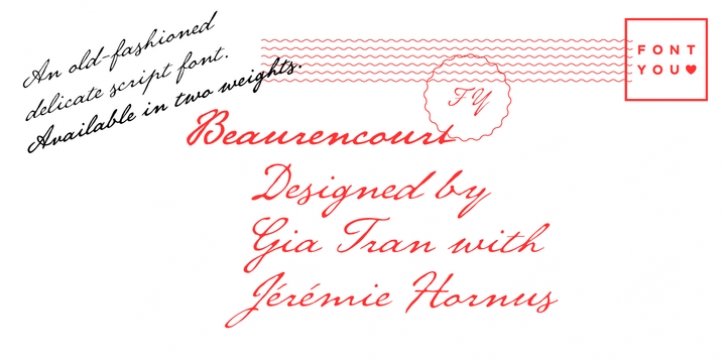
Beaurencourt FY is an old-fashioned script font, inspired by 19th century handwriting. This delicate and font is developed in two weights, a regular version and a light one. Initially written at small size, Beaurencourt will also work at larger sizes where it reveals the texture of ink and paper.
An old-fashioned delicate script font. Available in two weights.